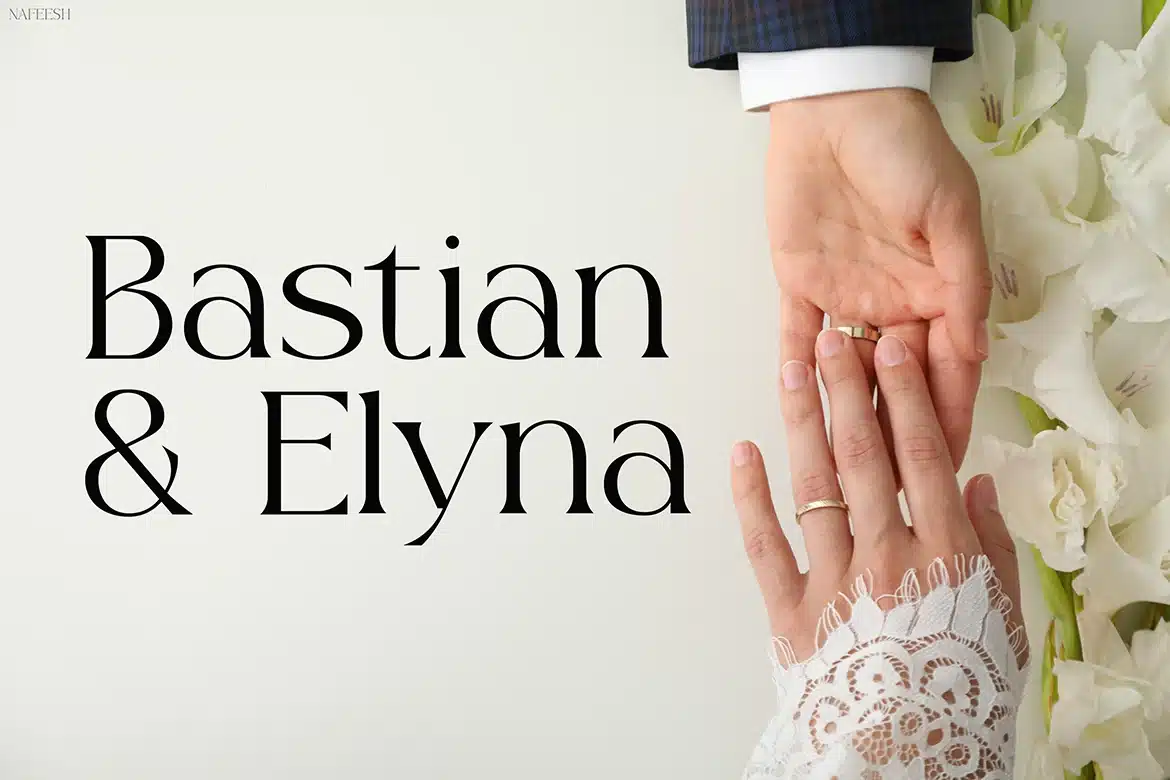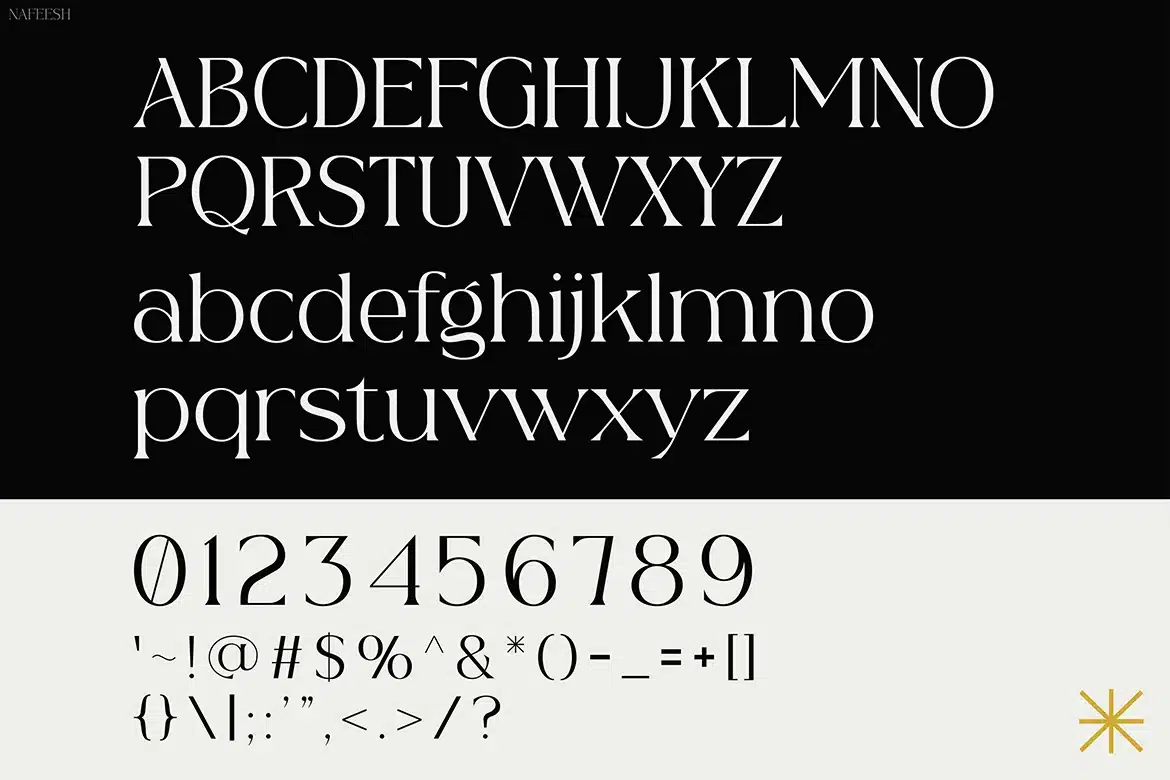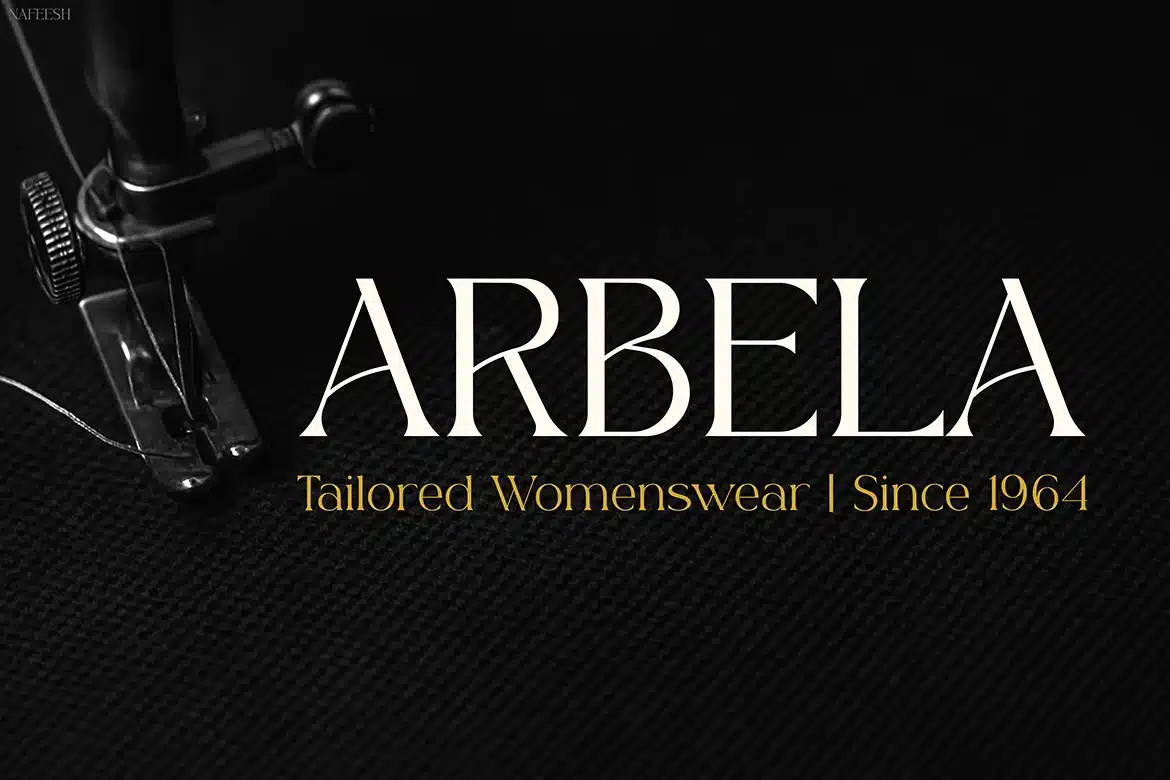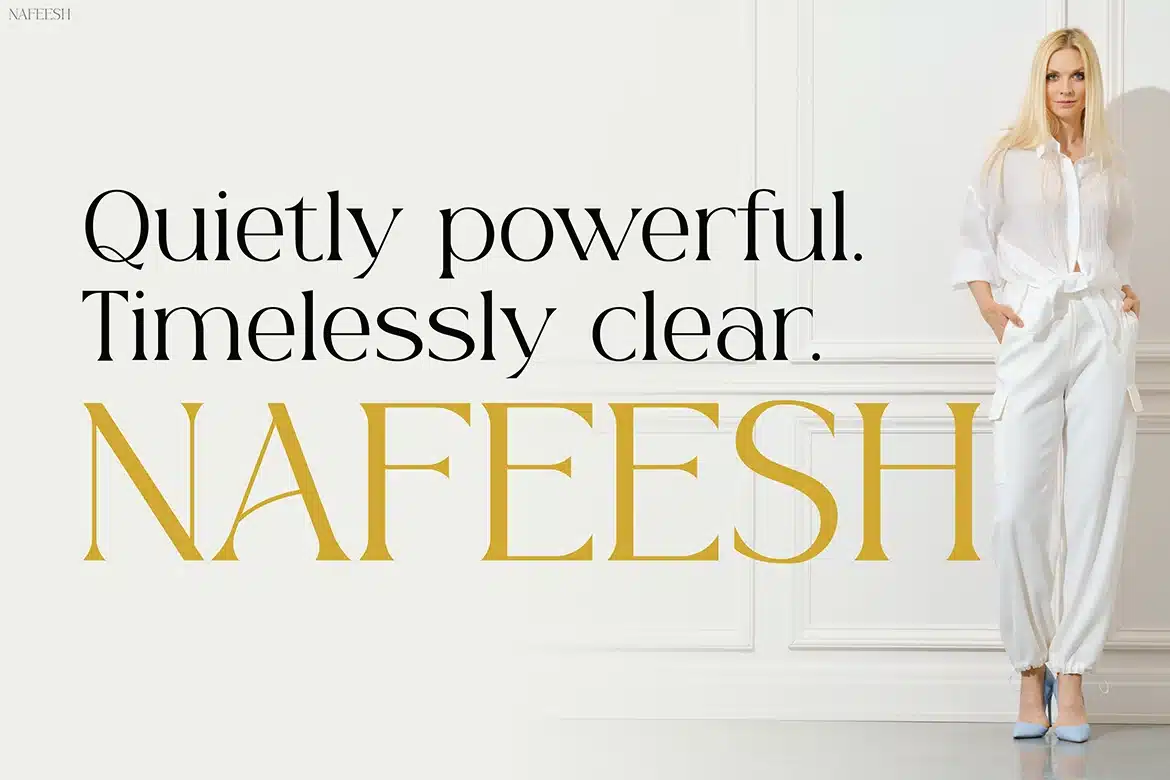
Nafeesh — Modern Classic Font
Nafeesh
Classic Meets Modern: Timeless Letters for Fashion and Beauty Brands
Nafeesh is an elegant display typeface crafted for branding that needs a calm yet commanding presence. Inspired by timeless editorial design, this high-contrast serif features sharp verticals, fine hairlines, and luxurious proportions that elevate headlines and logos. Its refined structure and soft terminals offer a distinctive voice—graceful, confident, and balanced. Perfect for fashion, magazine covers, upscale packaging, and minimalist web banners.
Designed with a modern editorial mindset, Nafeesh bridges the gap between classic serif tradition and contemporary branding needs. Whether you're designing a stylish Instagram carousel, luxury product packaging, or refined wedding stationery, Nafeesh injects a polished sense of clarity and charm into every layout. Its graceful letterforms make it the perfect type choice for high-end fashion brands and creative professionals who value subtle drama.
Key Features :
Elegant Editorial Serif
- Balanced contrast with tall x-height and smooth legibility
- Designed for logos, magazine titles, brand identities, and chic web hero text
Visual Personality
- Sharp verticals & soft finishing strokes
- High-end, confident, timeless aesthetic
- Ideal for fashion, beauty, lifestyle, and minimalist branding
Professional Utility
- Smooth performance in print and digital
- Scales well across sizes — from business cards to billboards
- Designed for clean kerning and smart spacing